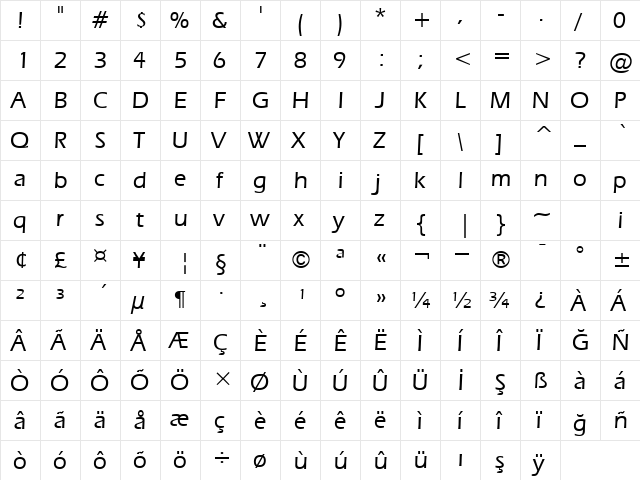
00477 Regular Font Preview
00477 Regular
00477 Regular Font Details
Design Context for 00477 Typeface
00477 takes a measured approach to typography — its balanced proportions and neutral character make it a reliable workhorse for both digital and print work.